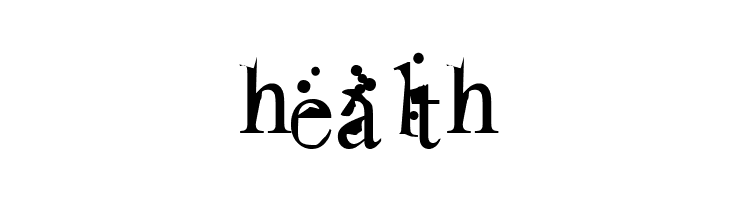
( Fonts by Slub Design - Raymond Buetens - www.slubdesign.com )
A playful, hand-drawn font with bold, cartoonish letters and a whimsical style.
( Fonts by Maelle.K - Thomas Boucherie )
An elegant script font with intricate swirls and flourishes.
( Fonts by Rich Gast - www.greywolfwebworks.com OFF SITE )
A decorative font with intricate, ornamental details and bold outlines.
( Fonts by dartcanada.tripod.com - Darren Rigby )
A modern, geometric font with a bold, futuristic style.
A futuristic dot matrix font with a digital, pixelated style.